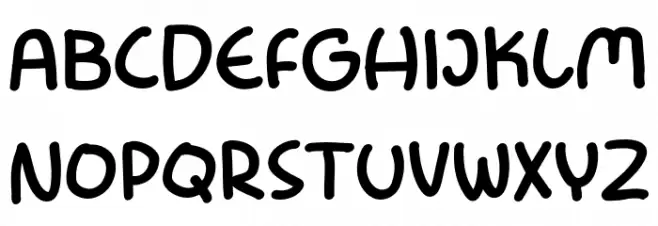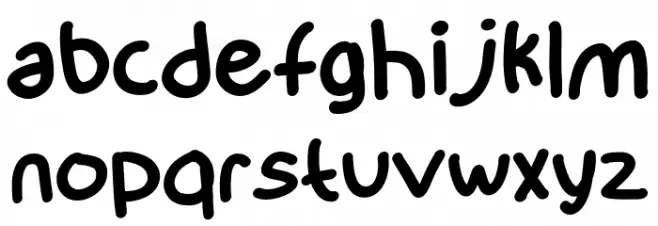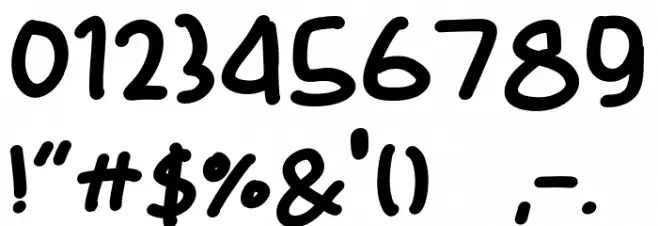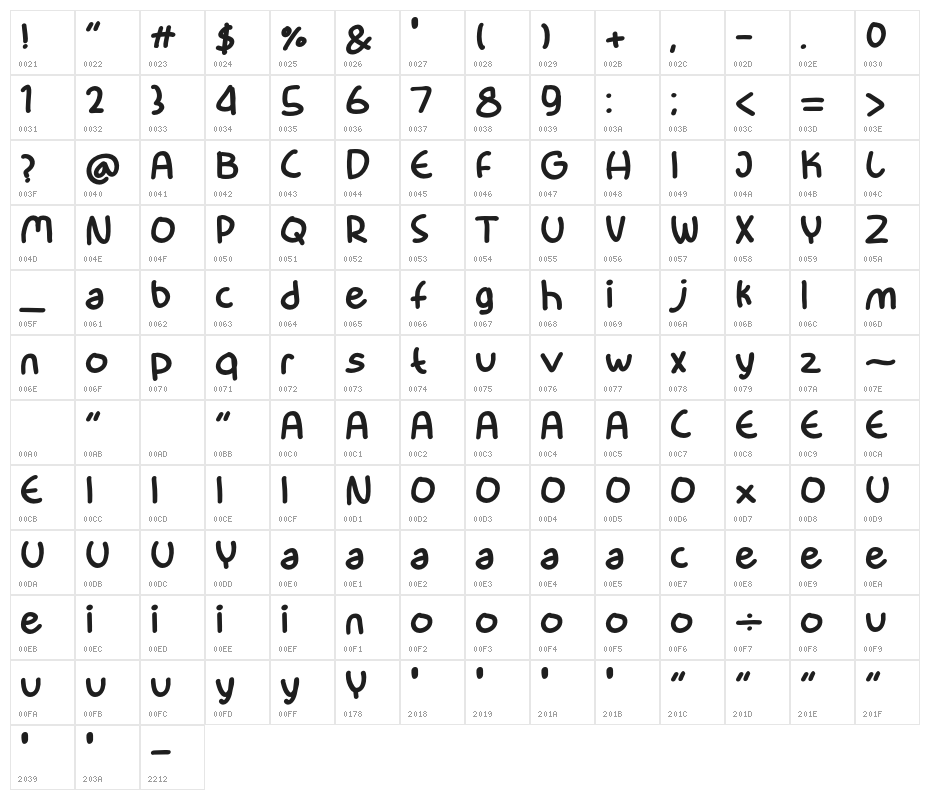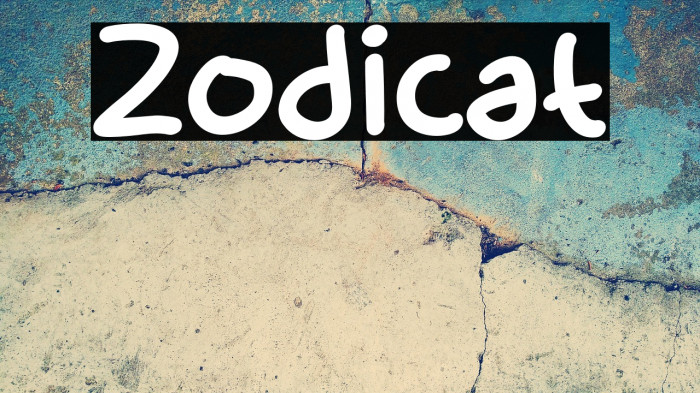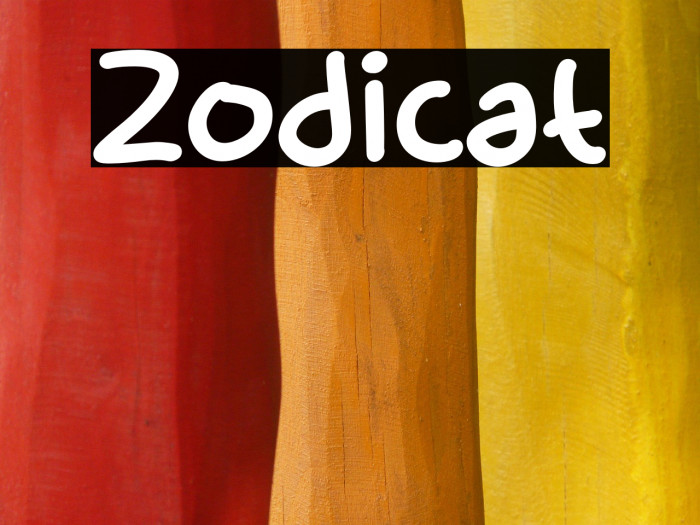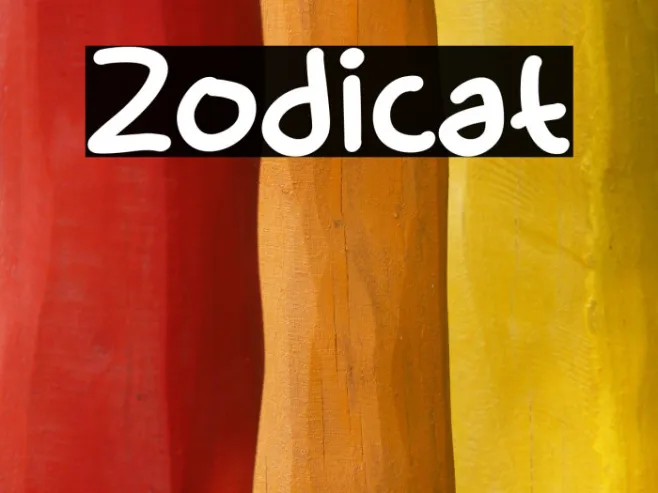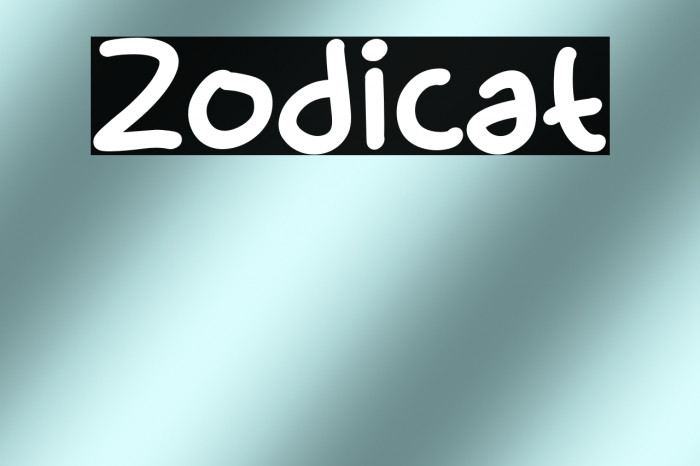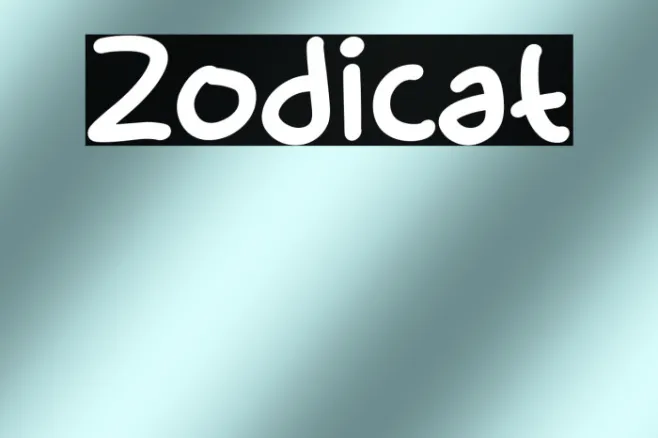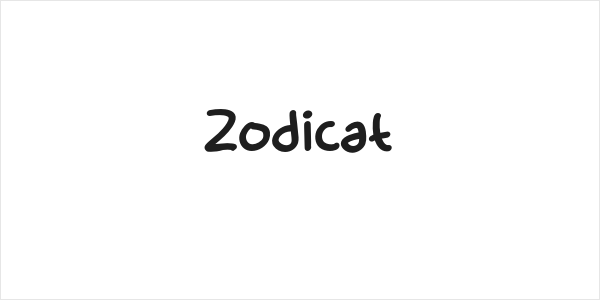
Zodicat Font
Zodicat Description
A playful, handwritten font with rounded edges and a casual style.
Playful handwritten font with rounded edges.
- Font: Zodicat
- Proposed Projects: Children's books, casual invitations, playful branding.
- Category: Handwritten
- Overall Style: Casual, Playful
- Use Case: Headlines, Informal text, Branding